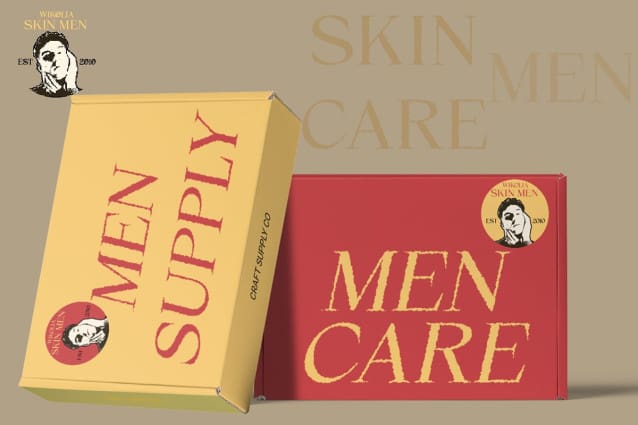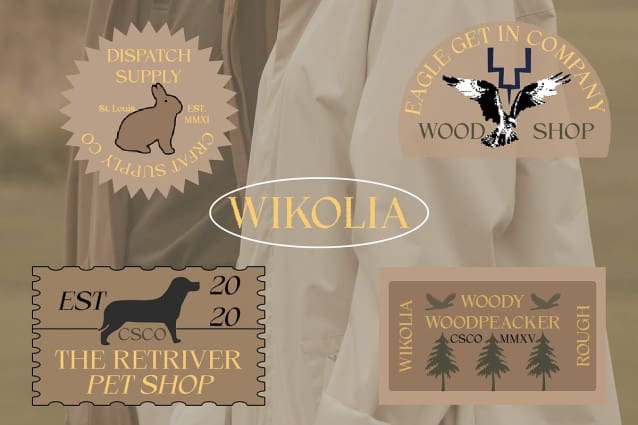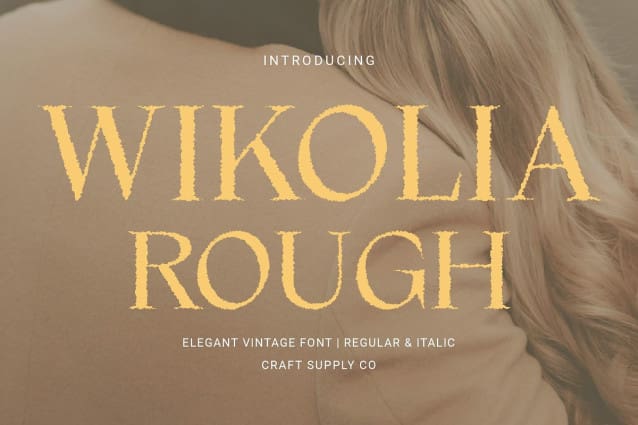
Wikolia Rough Font
Wikolia Rough Font: Embracing Rough Elegance. Serif Translation Design Wikolia Rough features a unique serif translation design that adds a distinctive touch to any project. Its elegant serif characters are imbued with personality and charm.
Rough Effect The font is enhanced with a rough effect, giving it a rugged and textured appearance that sets it apart. Each character exudes authenticity and adds depth to your designs.
Perfect for Display With its serif translation design and rough effect, This font is perfectly suited for display purposes. It commands attention and makes a bold statement in headlines, titles, and other prominent elements.
Versatile Application Despite its rugged appearance, This font is versatile in its application. From branding and packaging to posters and invitations, it adds a touch of character and sophistication to any design project.
Distinctive Elegance with a Rough Edge This font offers a unique blend of elegance and ruggedness, making it an excellent choice for designers seeking to add character and depth to their projects. Whether used for display or subtle accents, Wikolia Rough delivers impactful results with its distinctive design.